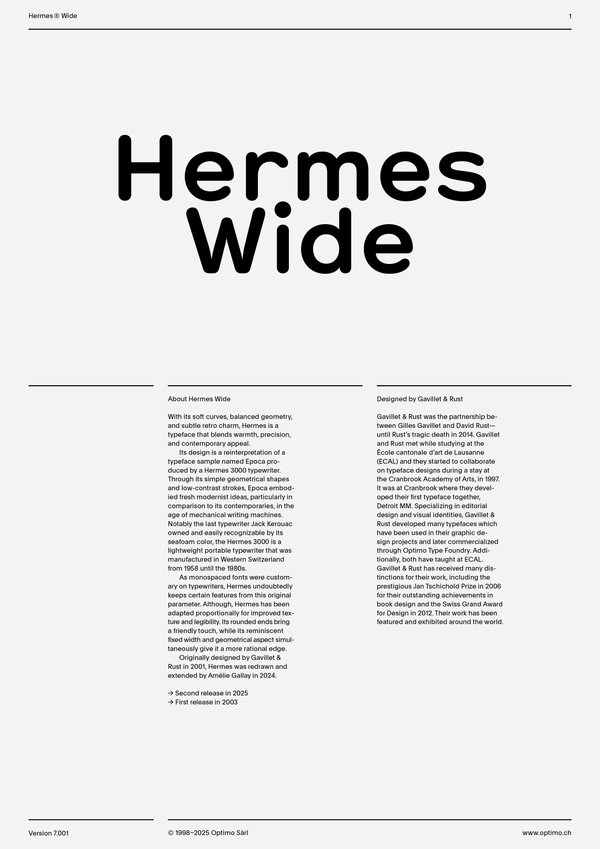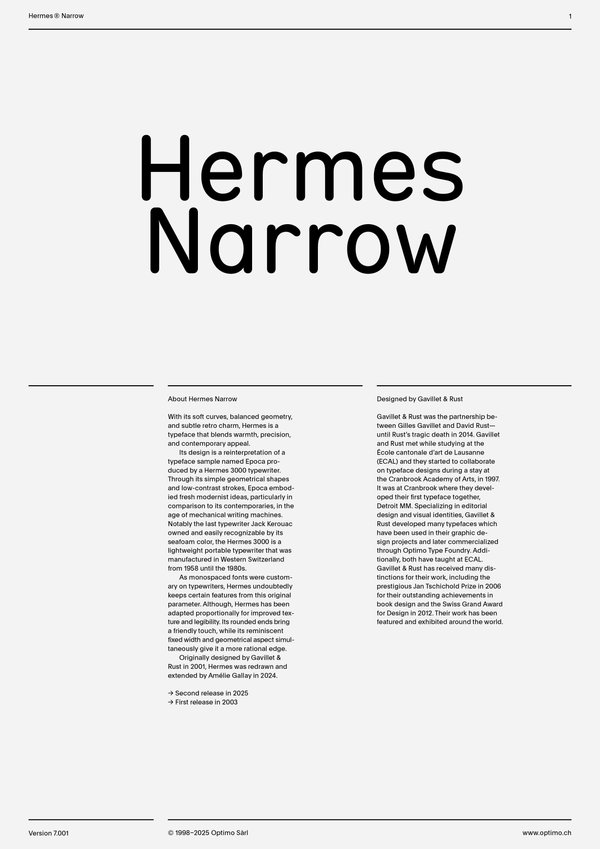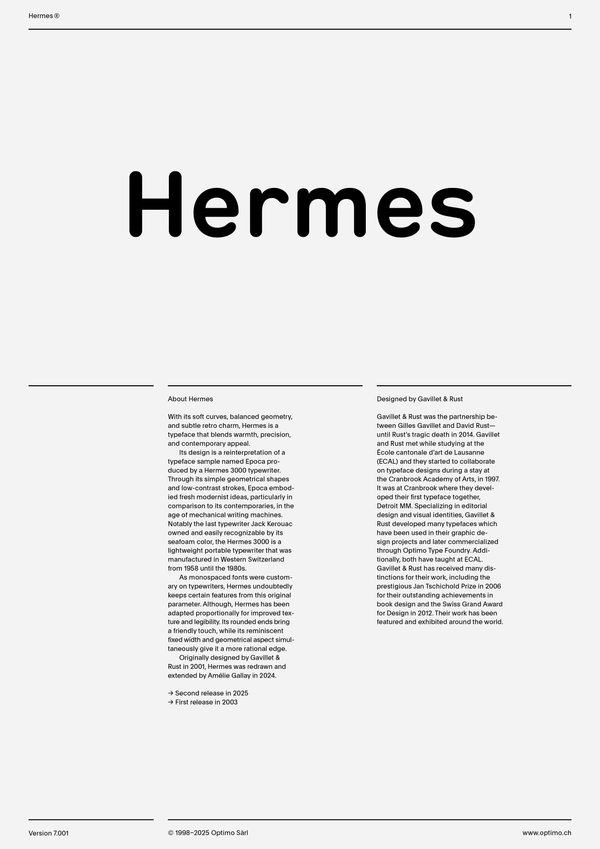
Hermes Variable
Case Sensitive Forms
This function formats the text in uppercase and adjusts spacing between all capital letters. It also applies the ‘Case Sensitive Forms’ feature which replaces certain characters with alternates that are better suited for all capital text, especially related to punctuation.
Contextual Alternates
Contextual Alternates [calt]
This feature adapts the position of a glyph after its surrounding context. For instance, a dash placed between two uppercase letters or numbers will be replaced by an uppercase version of the dash, slightly higher. This feature is usually active by default in Adobe applications.
Alternate I J W i j l m w
Stylistics Set [ss01]
This feature replaces glyph(s) with stylistic alternate(s).
Alternate a
Stylistics Set [ss02]
This feature replaces glyph(s) with stylistic alternate(s).
Alternate g
Stylistics Set [ss07]
This feature replaces glyph(s) with stylistic alternate(s).
Alternate l
Stylistics Set [ss08]
This feature replaces glyph(s) with stylistic alternate(s).
Alternate M
Stylistics Set [ss09]
This feature replaces glyph(s) with stylistic alternate(s).
Alternate ®
Stylistics Set [ss10]
This feature replaces glyph(s) with stylistic alternate(s).
Tabular Lining Figures
Tabular Lining Figures [tnum–lnum]
Based on the proportions of the capitals, lining figures have an invariable height. With the combination of the tabular spacing format, the width of each numeral is uniformized. This feature is useful when numerals need to all lined up. It facilitates the reading of numbers set within columns or tables. As some applications don’t have access to this feature, proportional figures are set as the default choice.
Fractions
With this feature, any numbers separated by a slash will automatically turn into a fraction. To fit in fraction configuration, numerals have been designed smaller and their weights have been adjusted to suit the typeface.
Lowercase math symbols
Stylistic Set 6 [ss06]
This feature activates alternate lowercase positioning of mathematical symbols.
This feature replaces any letter following a numeral with its matching superior letters. French language uses the ordinal indicators such as ‘er’ for 1er premier, while Spanish, Portuguese and Italian require the feminine and masculine ordinals ‘a,’ ‘o’ for 1º, 1ª. Ordinals are designed to match the weight of the typeface.
Slashed Zero
Slashed Zero [zero]
Originally created to avoid the confusion between the ‘0’ and the ‘O’, this feature substitutes all zeros in a selected text by a slashed form of the zero.
Multiply sign
Stylistic Set 20 [ss20]
This feature substitutes the letter “x” into the multiplication sign.
Numerators [numr]
This feature substitutes glyphs with their matching smaller alternates. The numerators are the same glyphs that are used to create fractions, their vertical position remains within the capital letters height. These glyphs are reduced in size and designed slightly heavier to keep them consistent with the rest of the font.
This feature substitutes glyphs with their matching smaller alternates and low position glyphs. The denominators are the same glyphs that are used to create fractions, their vertical position remains within the base line. These glyphs are reduced in size and designed slightly heavier to keep them consistent with the rest of the font.
Superscript/Superiors
Originally designed by Gavillet & Rust in 2001, Hermes was redrawn and extended by Amélie Gallay in 2024. Reformulated as a collection, Hermes now offers variable fonts, additional styles and a new width bridging the gaps between its already existing Narrow and Wide families. The result is a reliable, flexible and resourceful typeface and allows for extensive modern usage.